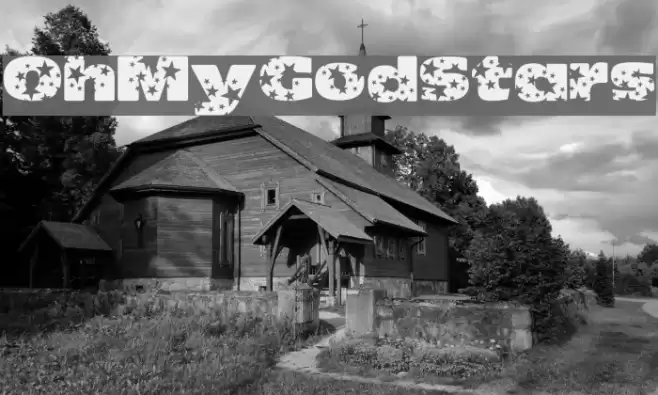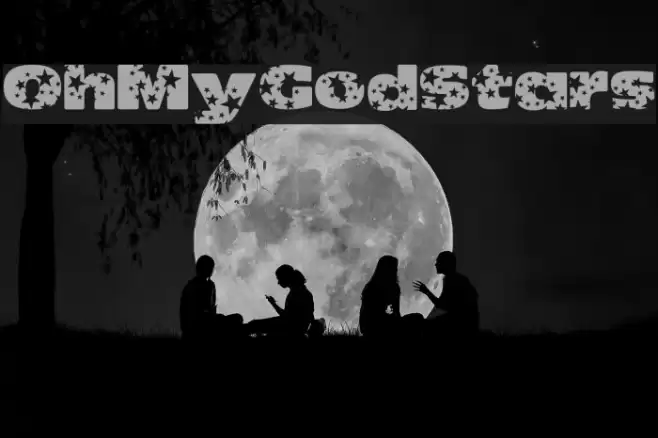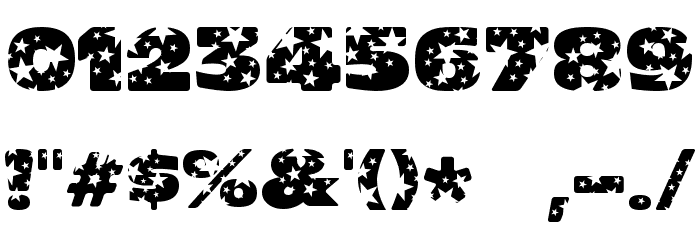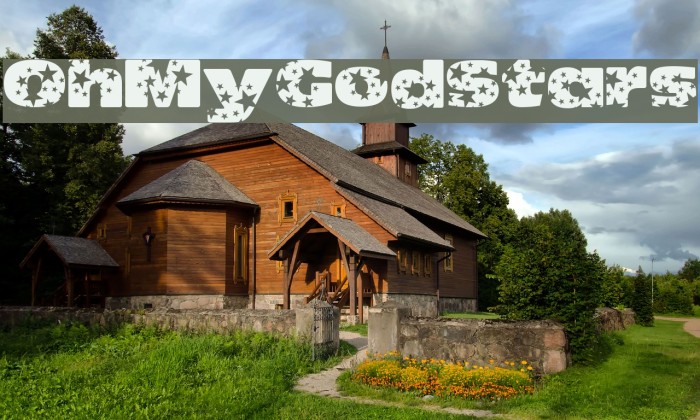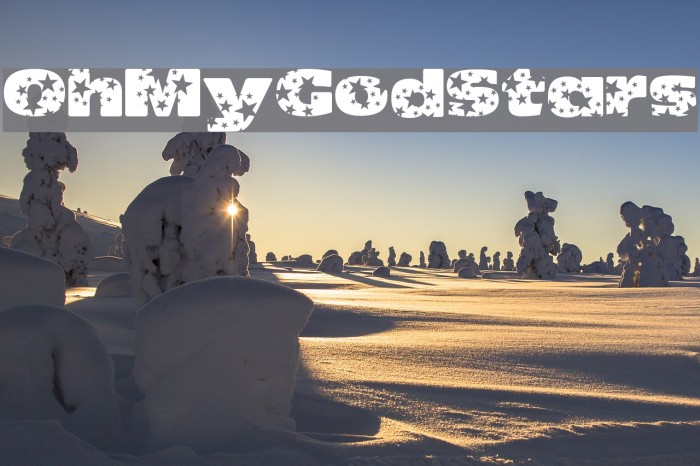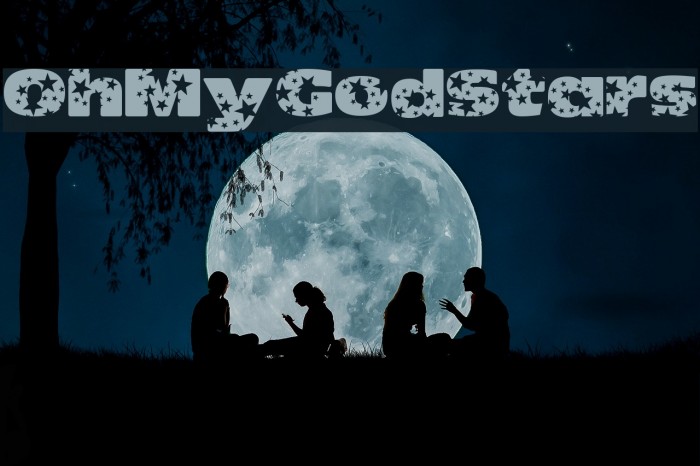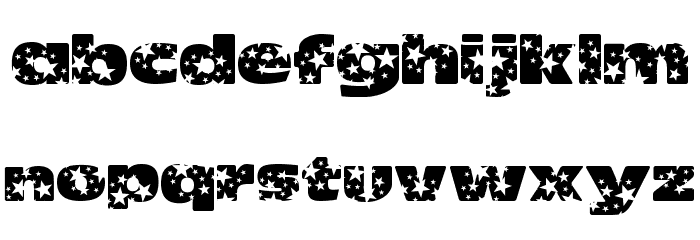
OhMyGodStars Font
OhMyGodStars Description
This font features a bold and playful design with a unique star pattern embedded within each character. The letters are thick and robust, making them stand out with a decorative flair. The star motifs add a whimsical and fun element, perfect for capturing attention. The uppercase and lowercase letters maintain a consistent style, while the numbers and special characters are equally adorned with stars, ensuring a cohesive look across all glyphs. This font is ideal for creative projects that require a touch of excitement and visual interest.
A bold, decorative font with star patterns in each character from Decorative fonts.
- Proposed Projects: Ideal for children's book covers, party invitations, festive banners, and playful branding.